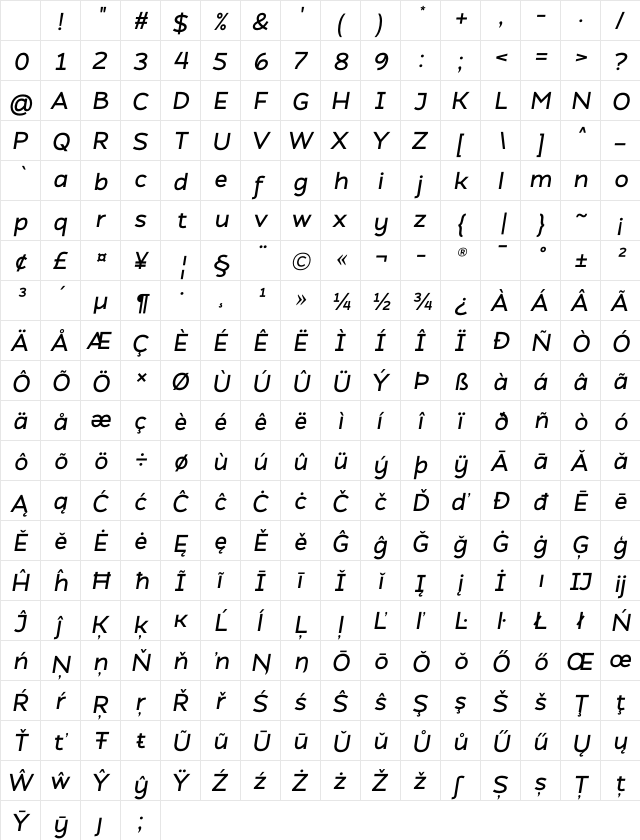
Complete Atozimple SemiBold Italic glyph index. Displaying only characters natively supported by Atozimple SemiBold Italic font.
Atozimple SemiBold is a composed and adaptable typeface that performs quietly and consistently across a wide range of design contexts. The slanted form adds forward momentum and visual energy. Its bold stroke weight gives it real presence on the page.
Pro Tip: Use Atozimple SemiBold for emphasis, pull quotes, and subheadings where its slanted energy can add rhythm to the layout.